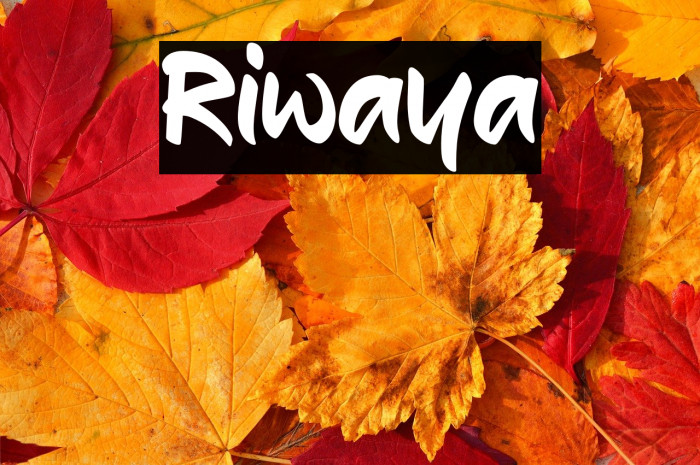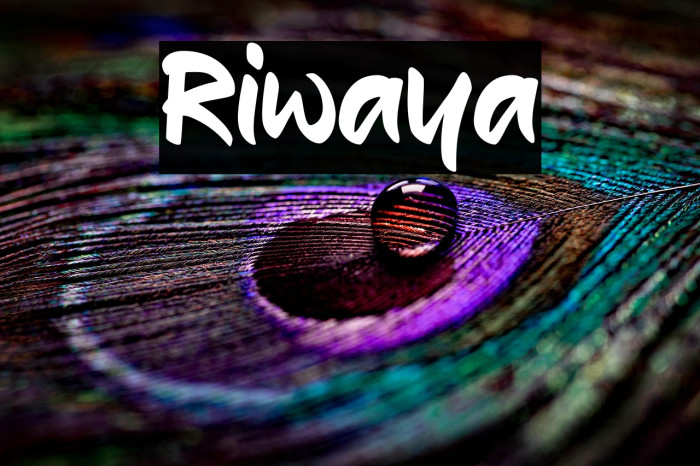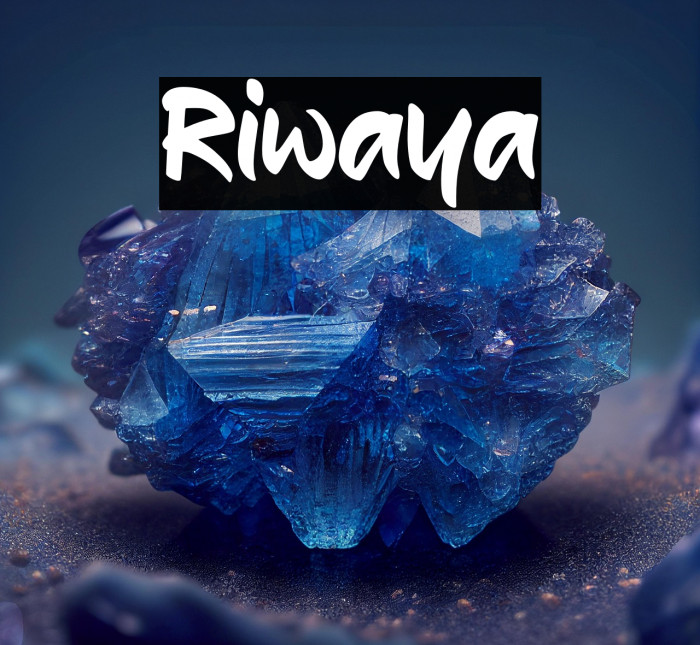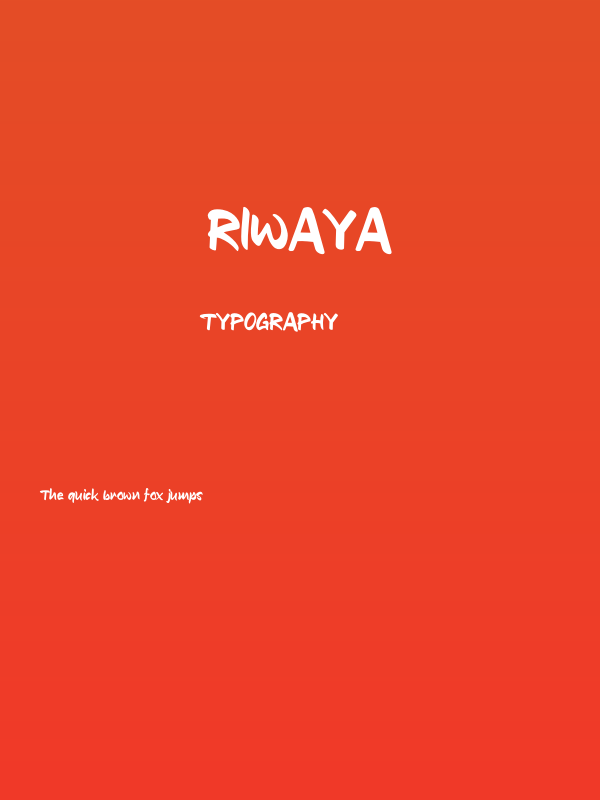
Riwaya Font
Riwaya Description
This font features a bold and expressive handwritten style, characterized by its fluid and dynamic strokes. The letters exhibit a playful yet sophisticated appearance, with varying thickness that adds a sense of movement and energy. The uppercase letters are bold and prominent, while the lowercase letters maintain a consistent flow, enhancing readability. The absence of numbers and special characters suggests a focus on artistic expression rather than functional typography. The overall design is modern and creative, making it suitable for projects that require a personal touch or artistic flair.
| Use Case | Headlines, Logos, Artistic projects |
| Proposed Projects | Ideal for creative projects such as greeting cards, invitations, posters, and branding materials that require a personal and artistic touch. |